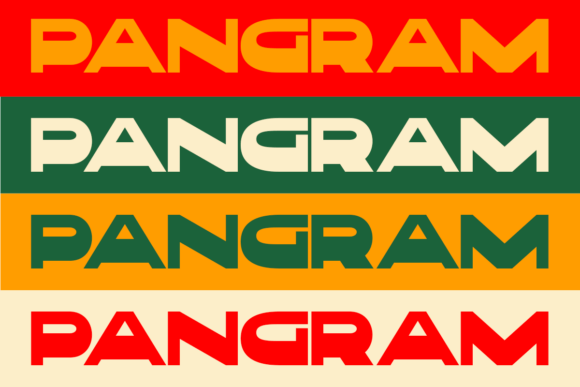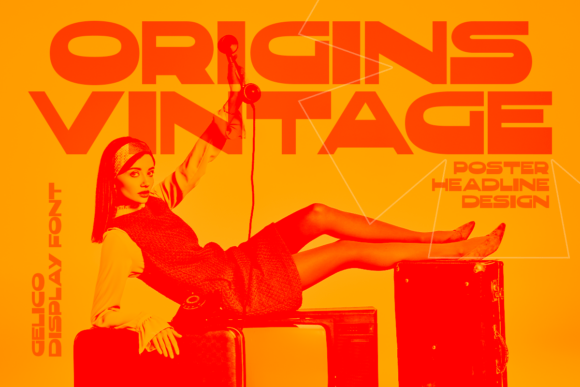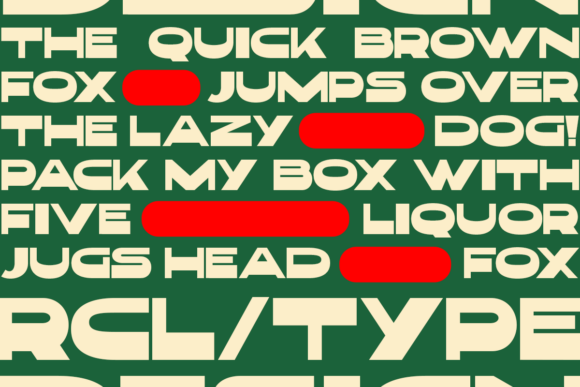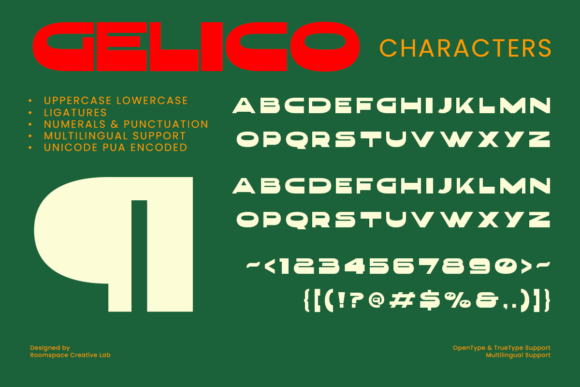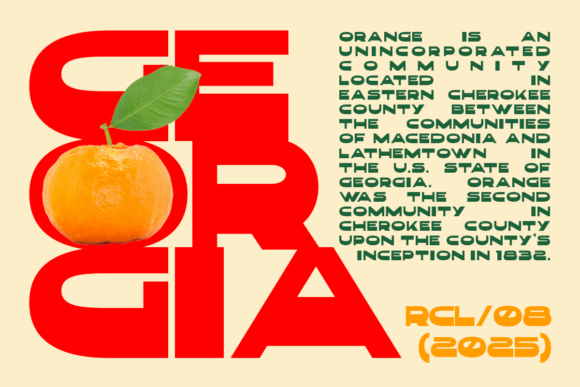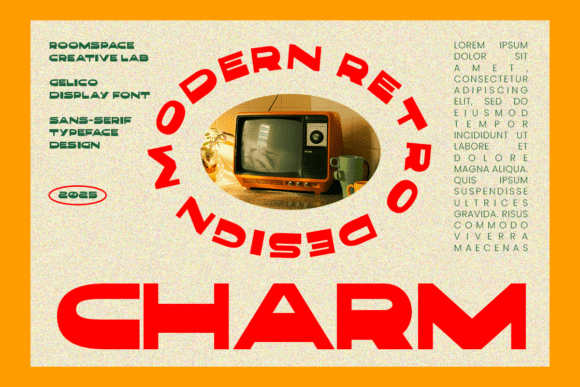
Introducing Gelico Regular Font: The Bold Geometric Display Font for Impactful Designs
In the world of typography, a bold and geometric display font can make all the difference in creating a lasting impression. Gelico Regular Font is one such font that is designed to make a strong statement with its heavyweight and clean shapes. Whether you’re working on a branding project, creating a poster, or designing an advertising campaign, Gelico is the perfect choice for projects that demand attention and unforgettable visuals.
A Confident Look for Modern Branding and Creative Headlines
Gelico’s confident look is ideal for modern branding and creative headlines. Its bold and geometric construction ensures that your message stands out from the crowd, making it perfect for logos, packaging, and digital designs. The font’s clean shapes and precise lines create a sense of professionalism and sophistication, making it a reliable choice for designers and crafters.
Crafted with Precision for Optimal Readability
Gelico is crafted with precision to balance boldness and readability. Its geometric construction ensures consistent spacing, smooth kerning, and versatility across different design applications. This means that you can use Gelico with confidence, knowing that it will look great in any context. Whether you’re working on a large-scale billboard or a small business card, Gelico will deliver a bold and impactful message.
Comprehensive Font Support for Professional Use
Gelico includes uppercase, lowercase, numbers, and multilingual support, making it a reliable choice for professional use. This comprehensive font support ensures that you can use Gelico for a wide range of projects, from branding and advertising to packaging and digital design. With Gelico, you can create stunning visuals that communicate your message effectively, regardless of the language or medium.
Applications for Gelico Regular Font
Gelico is a versatile font that can be used in a variety of design applications, including:
- Logos: Create a bold and memorable logo with Gelico that makes a lasting impression on your customers.
- Posters: Use Gelico to create eye-catching posters that grab attention and communicate your message effectively.
- Advertising Campaigns: Gelico is perfect for advertising campaigns that demand bold and impactful visuals.
- Packaging: Add a touch of sophistication and professionalism to your packaging with Gelico.
- Digital Designs: Use Gelico to create stunning digital designs that stand out from the crowd.
Why Choose Gelico Regular Font?
There are many reasons why Gelico Regular Font is an excellent choice for designers and crafters, including:
- Bold and Impactful: Gelico is designed to make a strong statement with its bold and geometric shapes.
- Clean and Professional: Gelico’s clean shapes and precise lines create a sense of professionalism and sophistication.
- Versatile: Gelico can be used in a variety of design applications, from logos and posters to packaging and digital designs.
- Comprehensive Font Support: Gelico includes uppercase, lowercase, numbers, and multilingual support, making it a reliable choice for professional use.
In conclusion, Gelico Regular Font is a bold geometric display font that is designed to make a strong statement. With its heavyweight and clean shapes, Gelico is perfect for projects that demand attention and unforgettable visuals. Its confident look is ideal for modern branding and creative headlines, while its comprehensive font support makes it a reliable choice for professional use. Whether you’re working on logos, posters, advertising campaigns, packaging, or digital designs, Gelico brings impact and innovation to your work. Add Gelico to your font collection and transform your creative projects with bold and timeless typography.